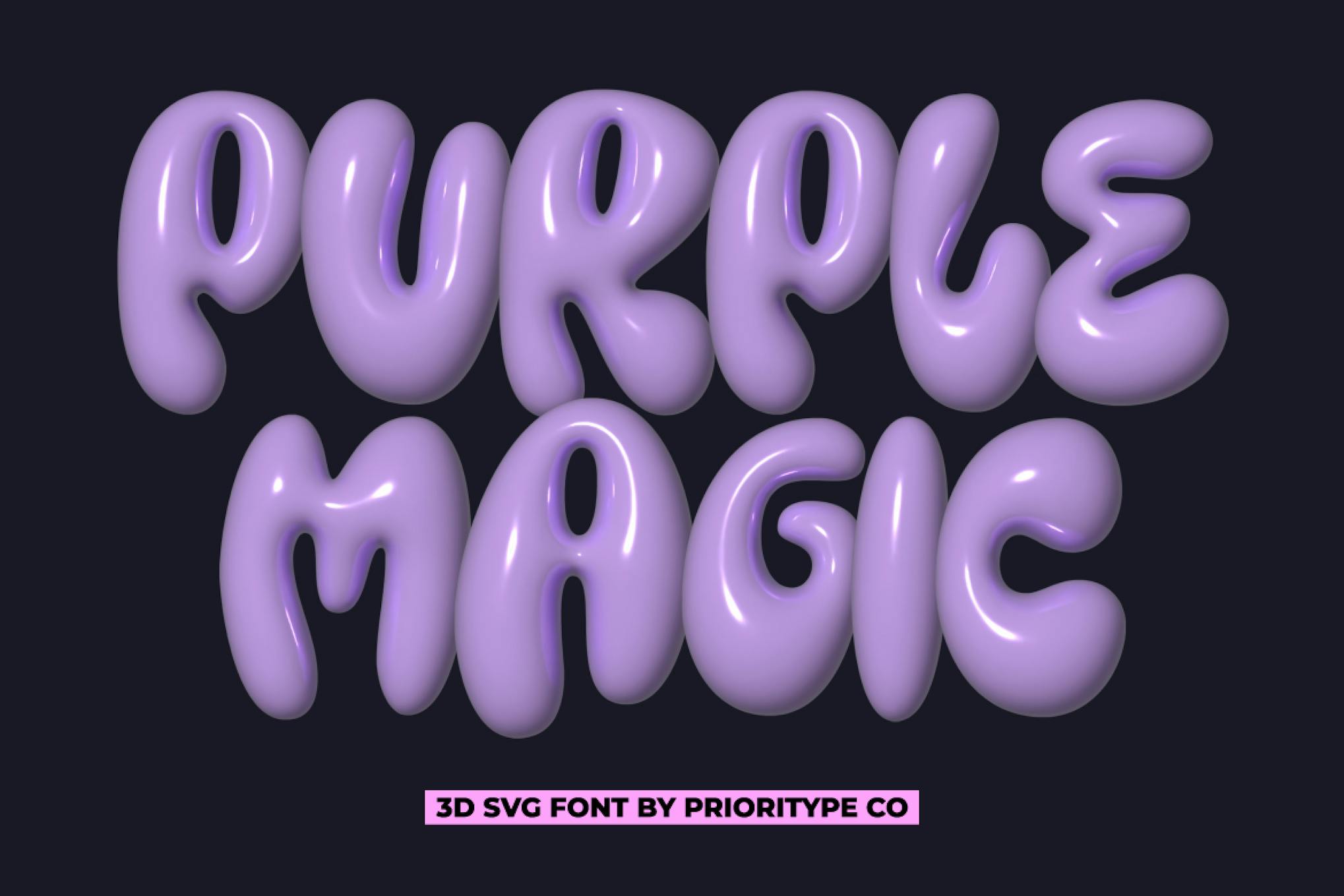
Purple Magic - 3D SVG Font
Purple Magic 3D SVG Font enchants fantasy gaming interfaces, mystical brand identities, magical event promotions, wizard-themed party invitations, supernatural movie titles, cosmic beauty product packaging, psychic service branding, mystical jewelry designs, enchanted children's book covers, magical app interfaces, spiritual wellness centers, and otherworldly marketing campaigns where dimensional magic effects and mystical purple energy create spellbinding visual experiences.
This mesmerizing typeface generates excitement through its extraordinary fusion of three-dimensional depth with mystical purple energy that creates typography possessing genuine magical presence and supernatural appeal. Purple Magic 3D SVG Font captivates viewers with its dimensional letterforms that appear to glow with inner mystical power, featuring sophisticated 3D effects enhanced by enchanting purple gradients and magical luminescence. The font's innovative design approach incorporates advanced SVG technology to create scalable dimensional effects that maintain their magical quality across all sizes and applications. Its distinctive character embodies the mystery and wonder of supernatural realms while delivering technical excellence for modern digital applications.
The Purple Magic 3D SVG Font family encompasses multiple mystical variations including standard 3D depth, enhanced magical glow effects, varying purple intensity levels, and SVG optimization for seamless digital integration. The collection features dimensional shadow treatments, magical particle effects, gradient transitions from deep purple to ethereal violet, and enchanted lighting effects that create authentic supernatural atmosphere. Advanced SVG features include customizable glow intensity, 3D rotation capabilities, and magical color transformations that enhance the font's otherworldly appeal.
Fantasy designers and mystical brand creators consistently choose Purple Magic 3D SVG Font Free Download for projects requiring typography that transcends ordinary design boundaries and creates genuine magical experiences. This remarkable typeface excels in applications where capturing imagination and creating emotional wonder are essential for audience engagement. The font's magical qualities make it particularly effective for entertainment properties, spiritual brands, and creative projects targeting audiences who appreciate mystery, fantasy, and supernatural aesthetics.
Whether you're designing fantasy gaming experiences, creating mystical brand identities, developing supernatural entertainment materials, or building magical digital applications, Purple Magic 3D SVG Font delivers unmatched mystical dimensionality. Its ability to convey magic, mystery, and otherworldly power makes it invaluable for creators seeking typography that truly enchants and captivates audiences. The font's magical mastery ensures your designs will transport viewers to mystical realms while maintaining the technical sophistication essential for professional magical and fantasy communications.